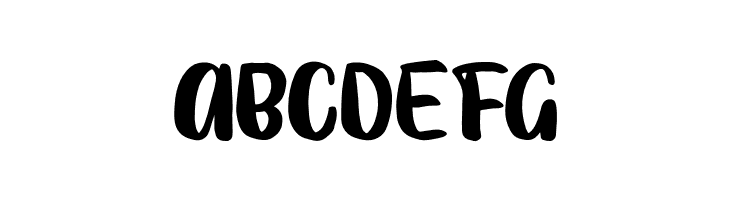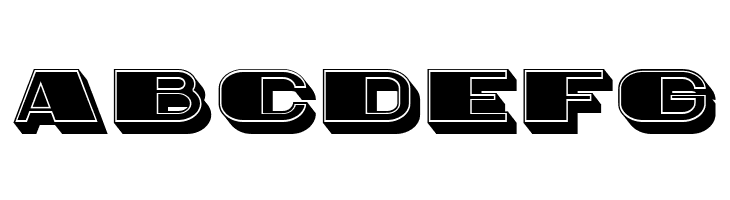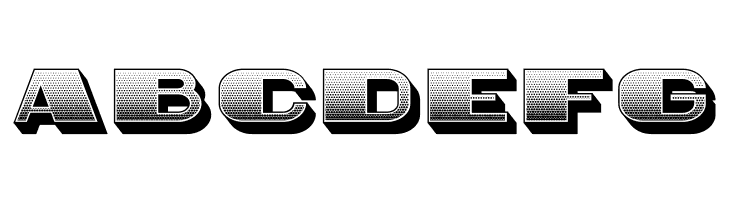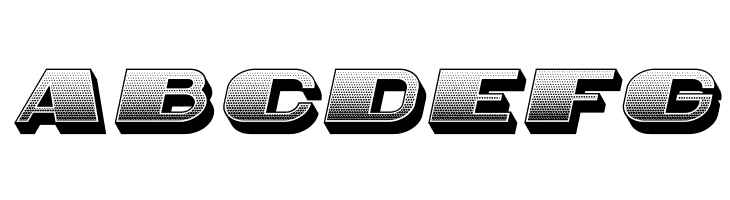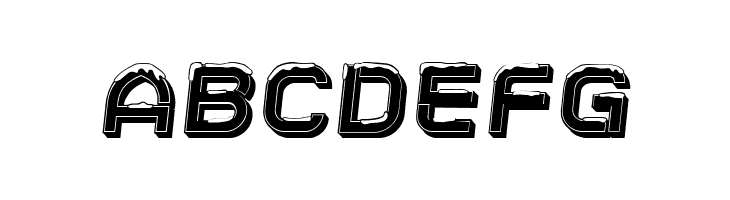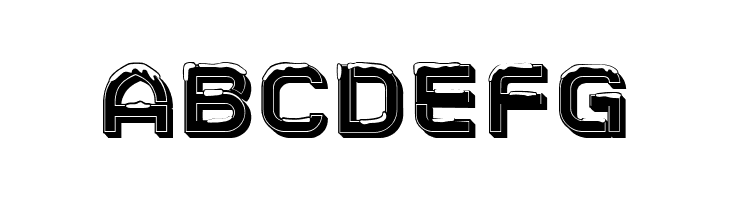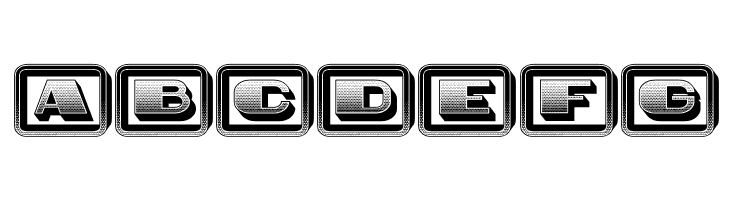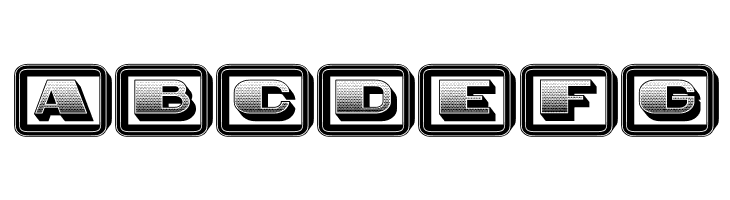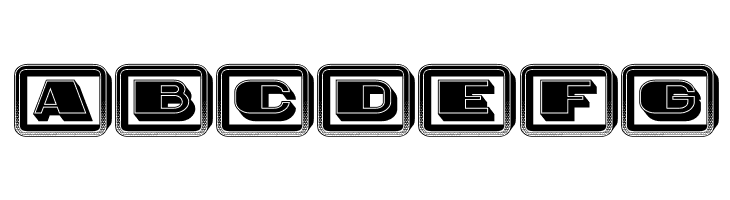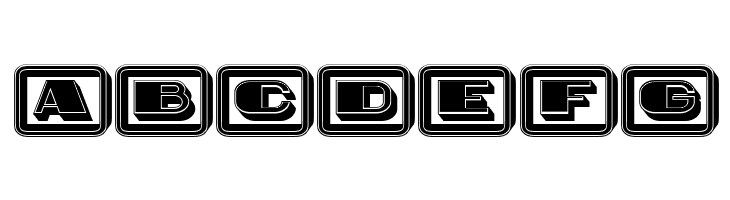
• I Love St
A whimsical font with characters enclosed in heart shapes, ideal for romantic themes.
• I Love You Bold
A bold, heart-themed font with a playful and romantic style.
• I Love You Bold Italic
A playful, heart-themed font with bold, italicized strokes.
• I Love You Italic
A whimsical, heart-themed font with smooth, flowing strokes and medium weight.
• I Love You-Hollow
A whimsical, heart-themed font with hollow characters and smooth lines.
• I Love You-Hollow-Inverse
A playful, heart-themed font with hollow, flowing lines.
• I Love You-Inverse
A whimsical font with heart motifs, perfect for romantic and playful designs.
• I Love You-Light
A whimsical font with heart motifs and flowing lines, perfect for romantic themes.
• I'm A Font Designer
• Ice Cube
A bold, playful font with icy, snow-covered characters for a winter-themed design.
• Ice kingdom Bold
• Icecold Italic
A bold, italicized font with a 3D effect and thick outlines.
• Icecold Regular
A bold, geometric font with a three-dimensional effect and strong visual impact.
• IceValley
A bold, playful script font with a handwritten, energetic style.
• Ich bin Endie
• ICHIGOCharacter
A decorative icon font with strawberry-themed illustrations.
• ICHIGORegular
A playful, bold font with bubbly, rounded characters and a whimsical style.
• id-Cinema-LightOT
• ideomaLINER
A geometric, linear font with a modern and futuristic style.
• ideomaMIAGUIII
A modern, geometric font with clean lines and rounded edges.
• ideomaPSEUDO
A bold, geometric font with angular shapes and a modern aesthetic.